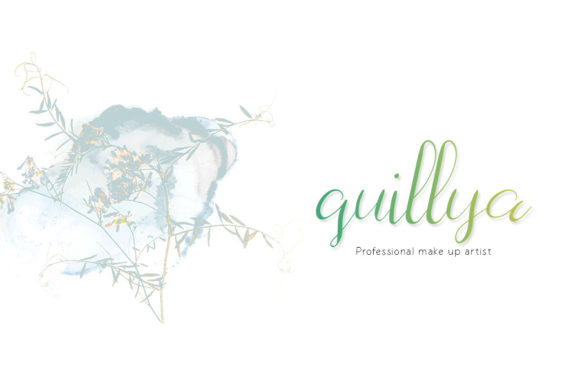
About Quillya Font
Quillya is a refined and timeless handwritten font. It is the best choice for creating eye-catching logos, branding, and quotes. Every letter has a unique and beautiful touch, which will make your designs come alive!